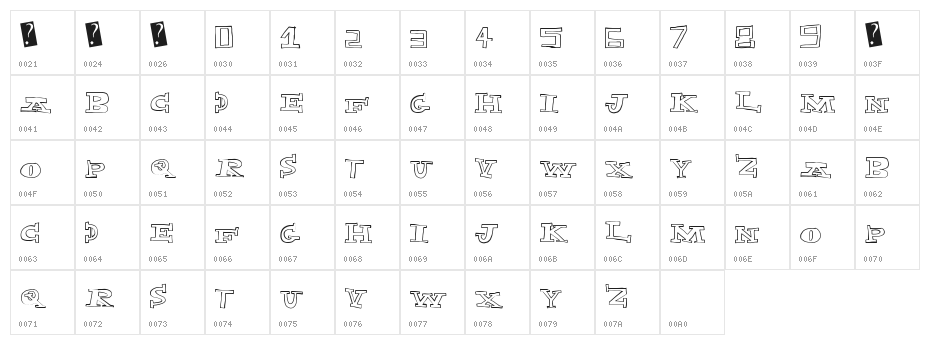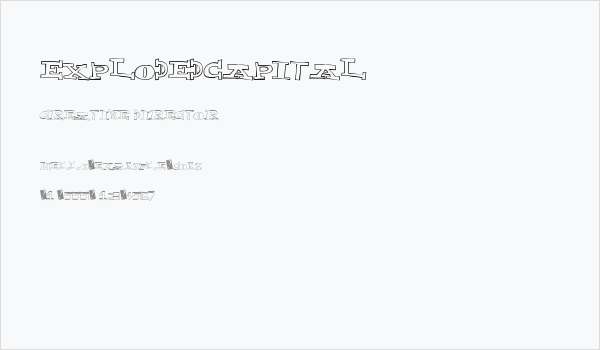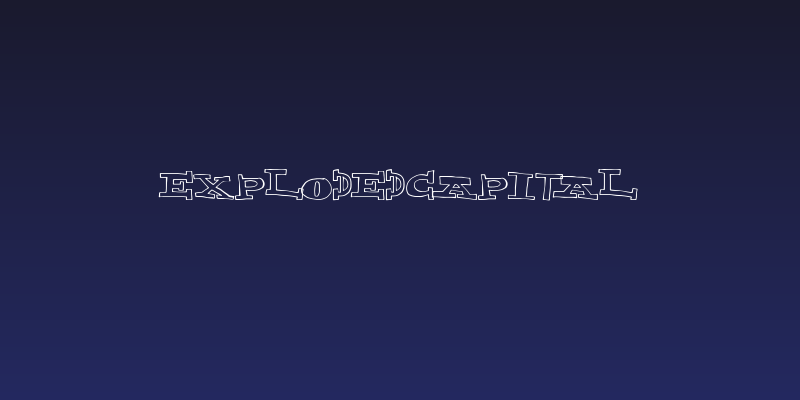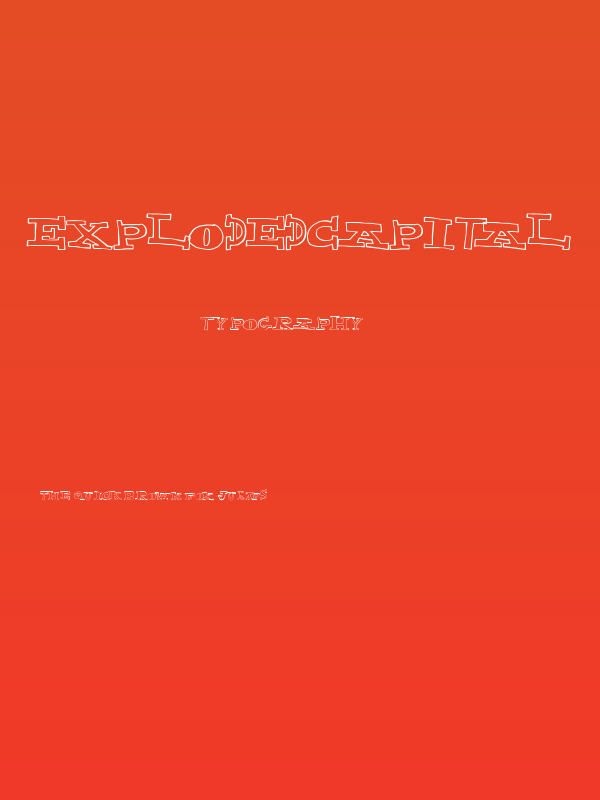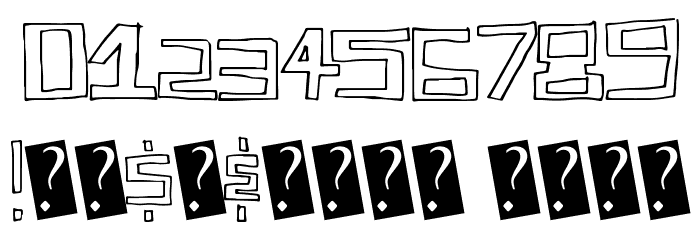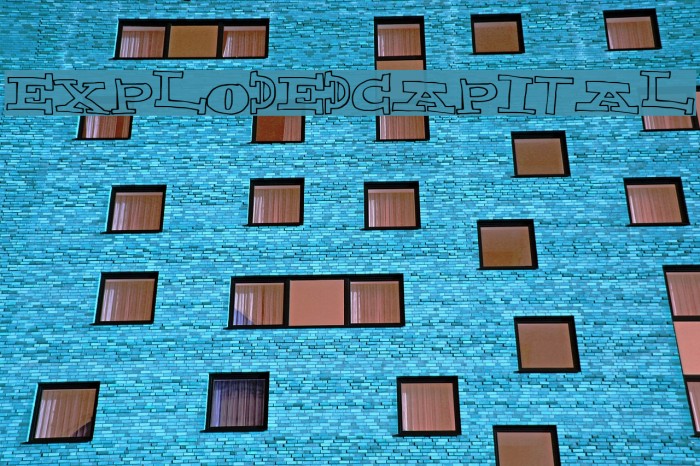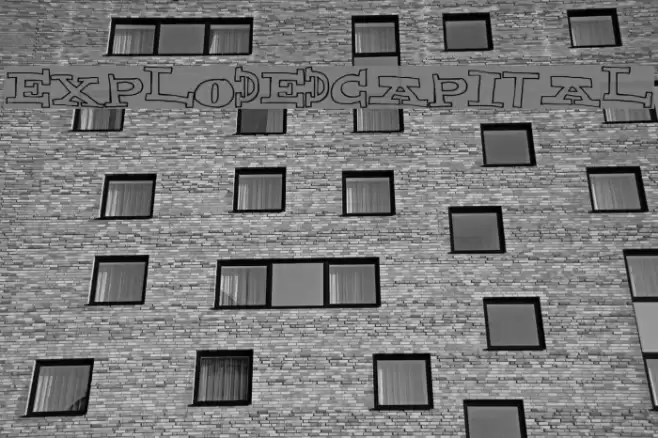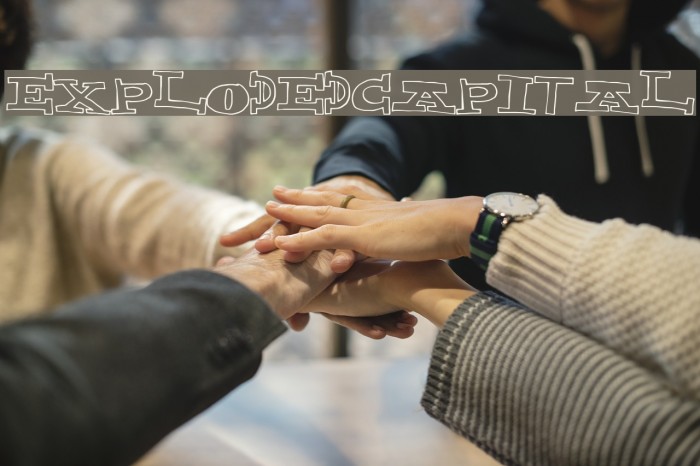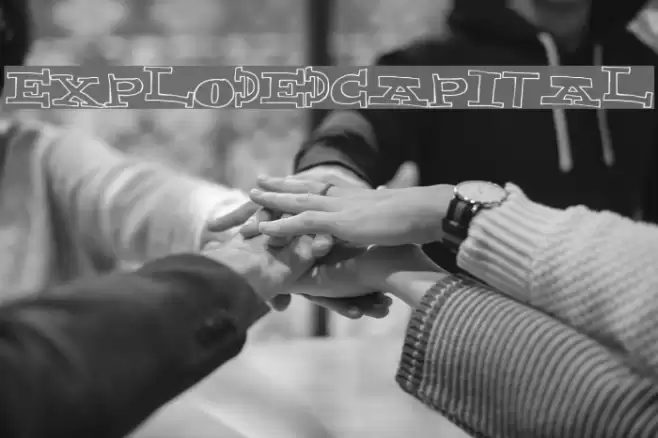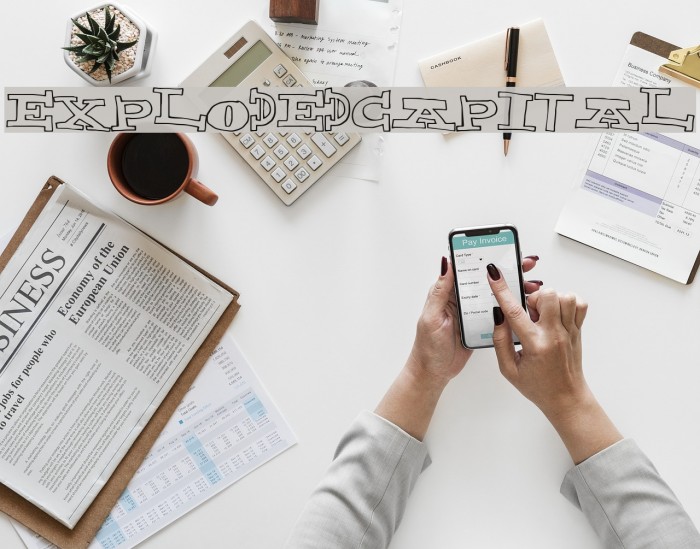
ExplodedCapital Font
| Vorgeschlagene Projekte | Ideal for creative projects such as comic books, children's book covers, posters, and playful branding materials. |